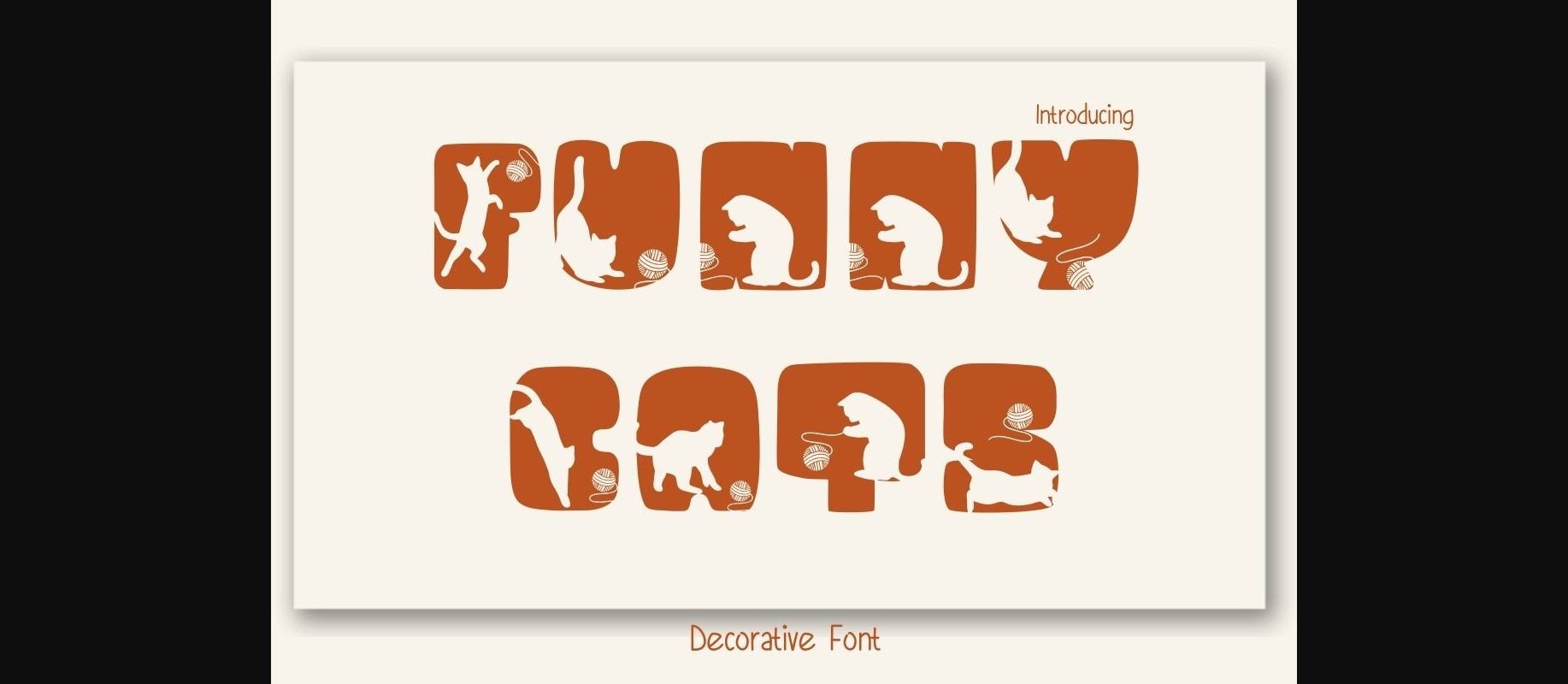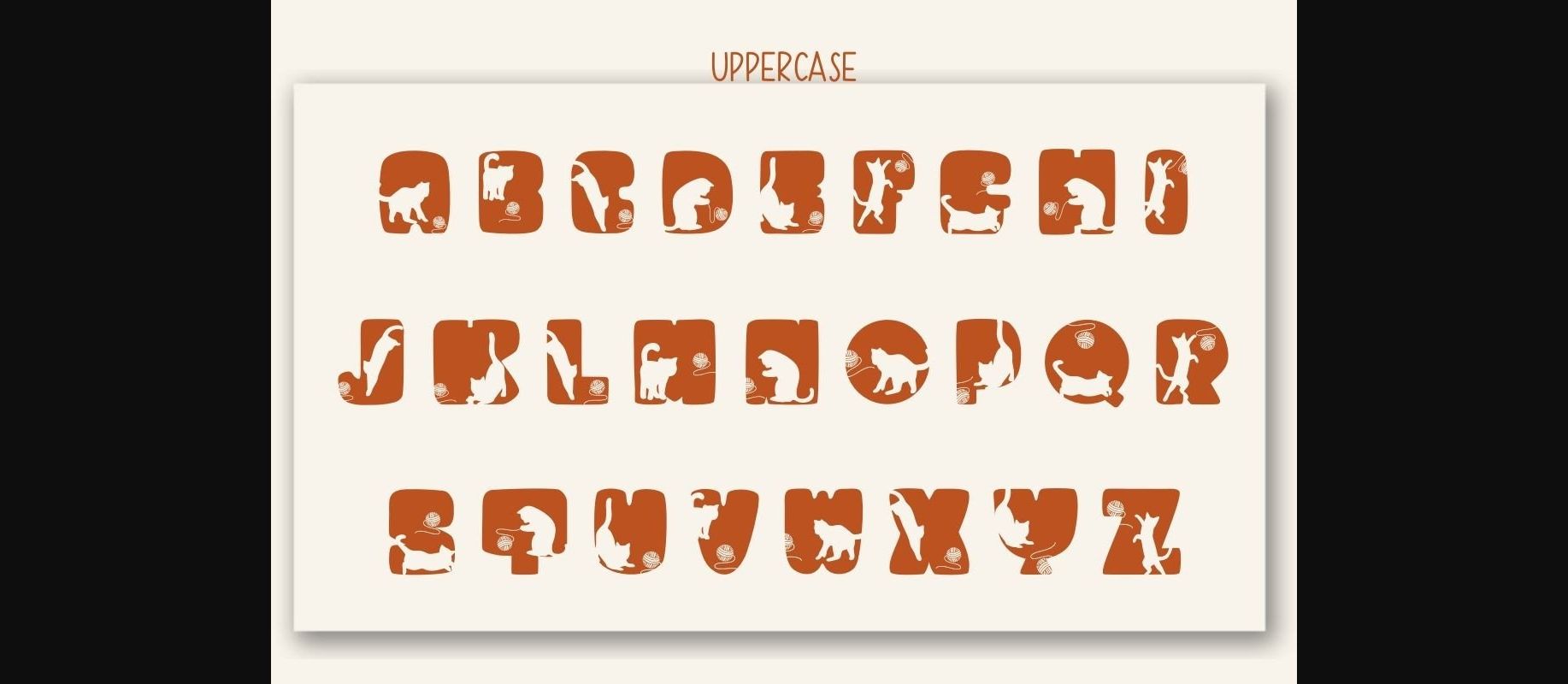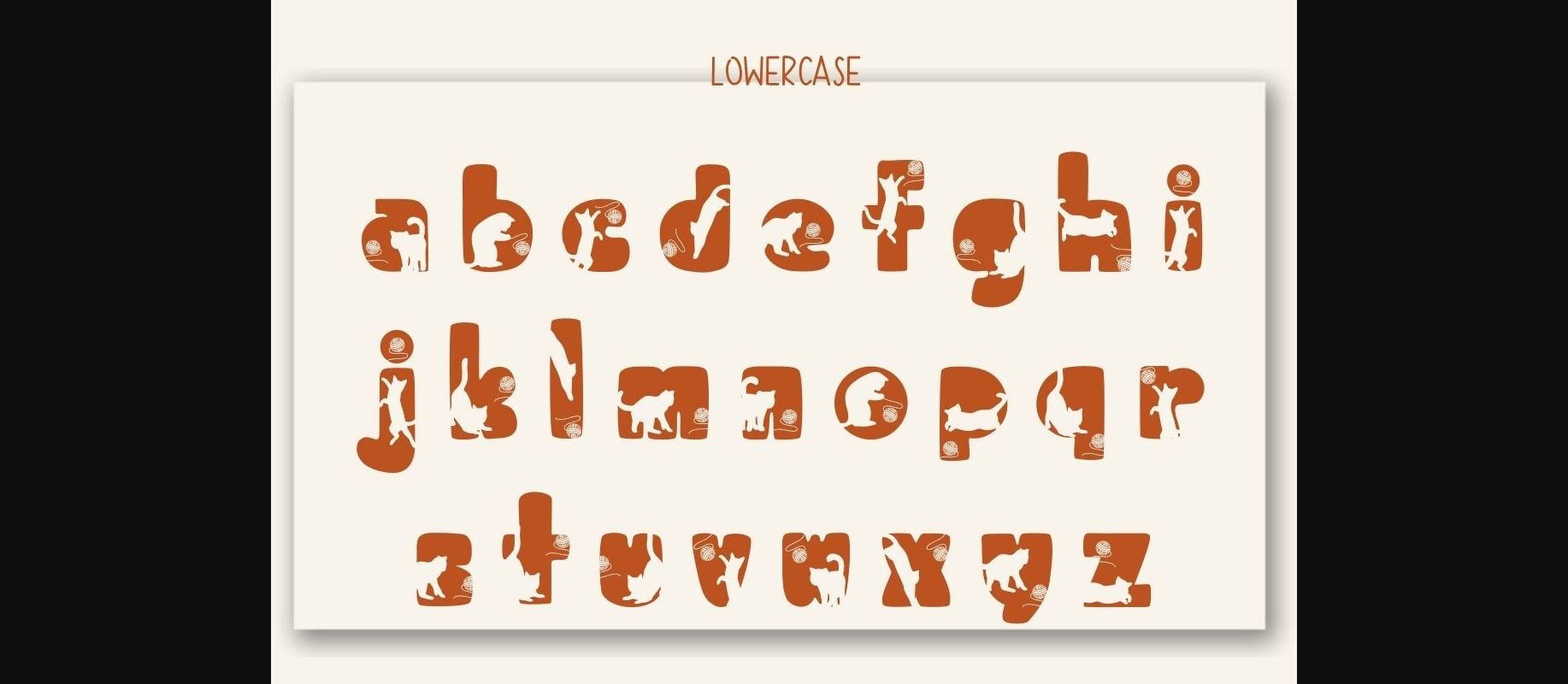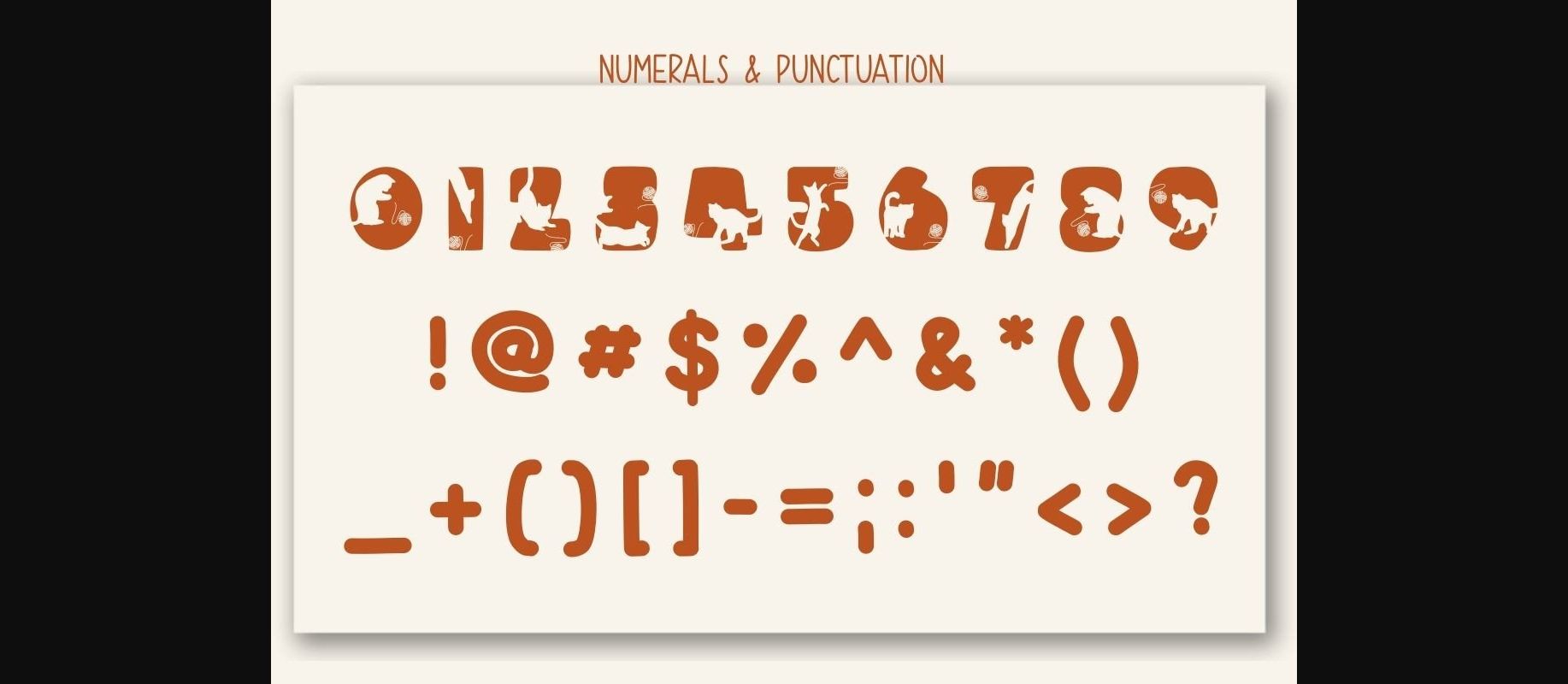
About Funny Cats Font
Funny Cats is a fun and adorable decorative font. This typeface uses a variety of cat styles to play with a ball of yarn combined with a bold font, and the results are surprisingly cute and unusual. Suitable for creating a variety of new designs to match cat lovers such as banners, content, mugs, cards, shirts, beautiful stationery, social media posts, and more!